As the name suggests, clean fonts have a clear and crisp appearance, making them highly legible and versatile. That is why they are so popular with creatives, as they are suitable for a wide range of design projects.
Whether on the web or in print, clean fonts are fantastic for communicating complex information as they convey a sense of simplicity. They are also ideal for bringing a sense of professionalism, making them perfect for legal documents, resumes, business memos, and presentations.
The font you choose will depend on the specific requirements of your project. But by prioritizing legibility, simplicity, and versatility, the clean font you select will need to ensure that your content or project is easy to read and understand.
Remember that typography plays a critical role in how a user interacts with your project, so when it comes to selecting your clean font, please “choose wisely.”
What is a Clean Font?
Clean fonts are typefaces that look simple and are easy to read. They have clear lines and no extra embellishments added to the characters, making them elegant and uncluttered.
Clean fonts are timeless and don’t go out of style because their simplicity makes them always appear modern. They are perfect when you want people to read something clearly without distractions, like on a sign, website, or book.
Not only is JUST Sans perfect for UI design, but it could also be used in logo and branding design. Its minimal aesthetic makes it an excellent choice for any project. If you’re serious about your typographical choices, JUST Sans is the font you need to have in your font toolbox.
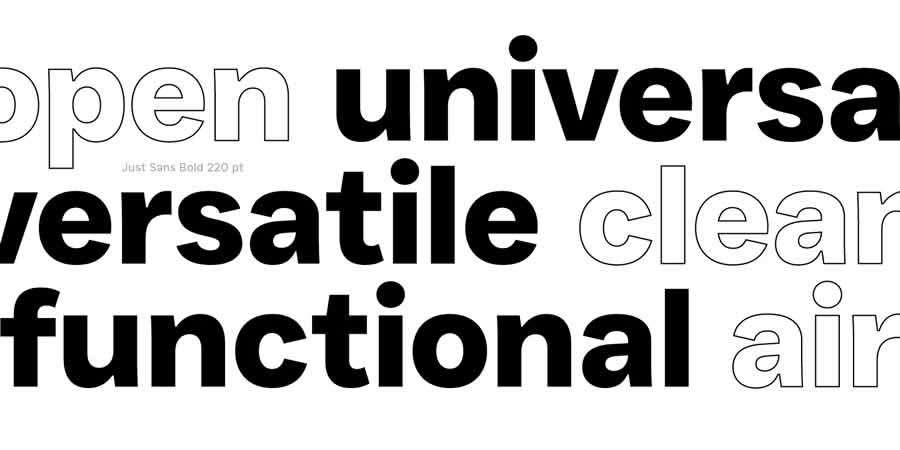
Dense is elegant, geometric, and compact, making it an excellent typeface for brand design. The regular weight is free. It is great for shorter copy, such as headlines or short paragraphs, as well as display campaigns and other branding materials where you want your message to be front and center.
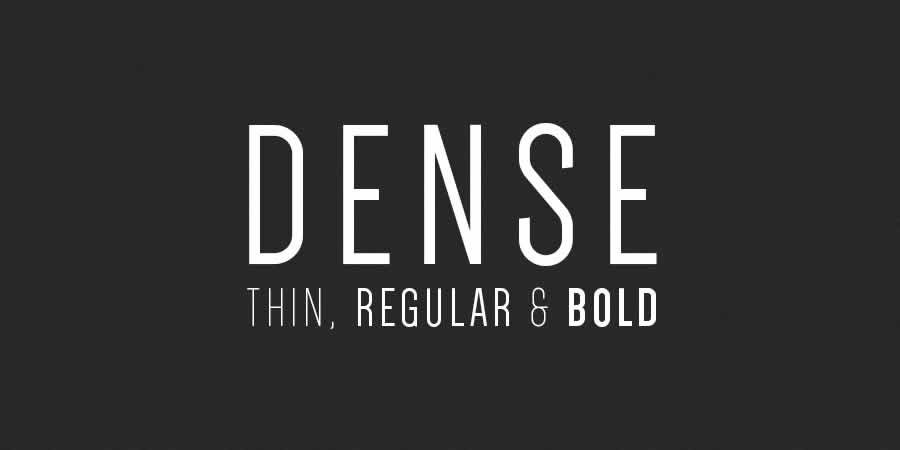
Crops is a clean sans-serif font designed with minimalism in mind. It comes in three versions (regular, light, and bold) and includes uppercase and lowercase characters, numerals, symbols, and multilingual support.
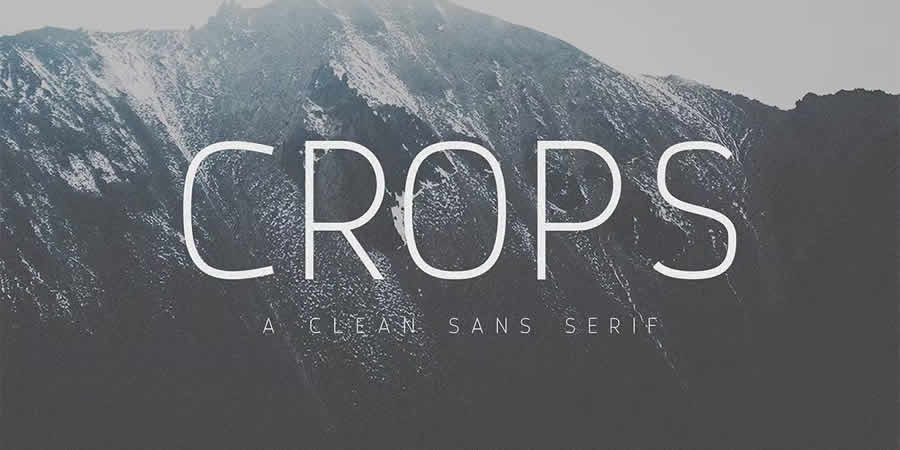
If you’re looking for a clean font for your next project, you’ll love Qartella. It’s a sans-serif typeface with a gentle aesthetic, perfect for friendly brands. It’s a great logo font, too! The Qaretella family includes ten fonts.
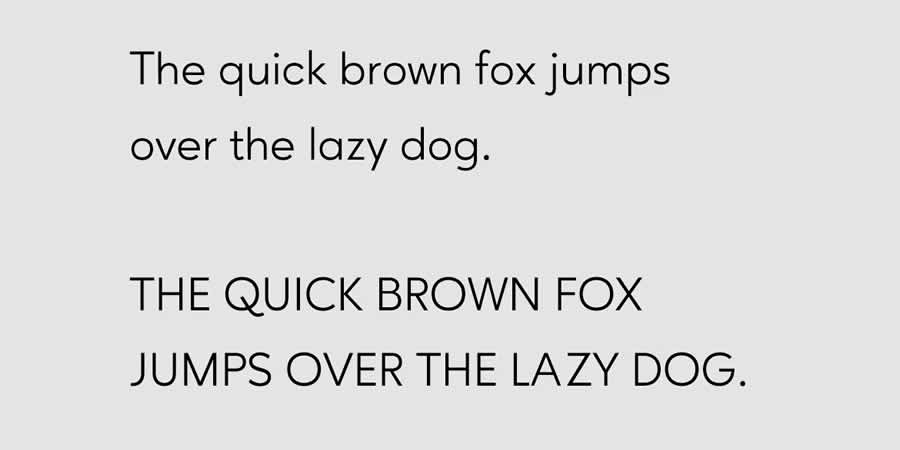
Anson is a reliable and robust font, like the World War II aircraft that inspired its name. This sans-serif offers a combination of ramrod-straight lines with slanted elements. It is legible even when used in longer paragraphs, making it perfect for technical industries.
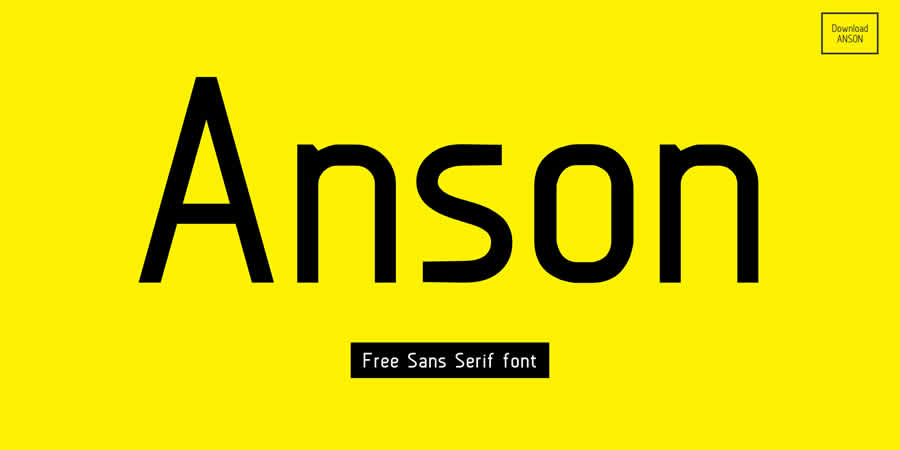
A sans-serif with a twist! Gorga is a clean, modern sans-serif with a few touches of grotesque typography. It includes six fonts in three weights, adjustable ligatures, contextual alternates, and multilingual characters.
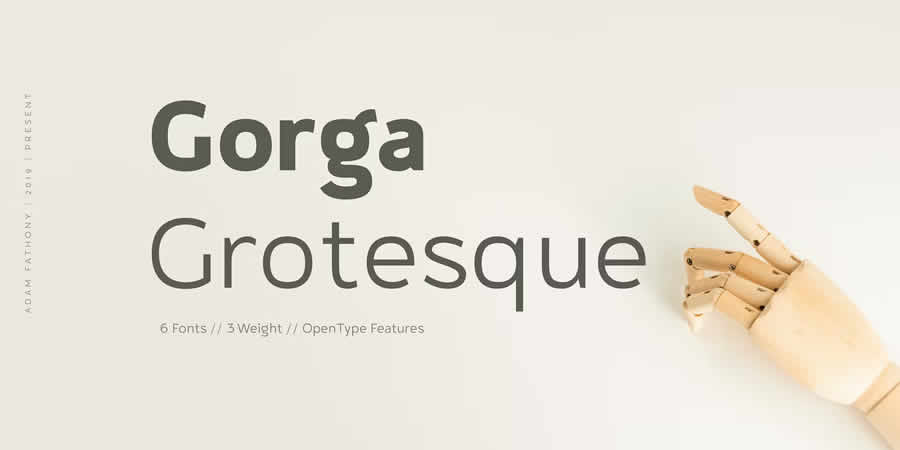
Bitter HT is perfect for projects that need a heavy focus on messaging. It’s a highly legible serif typeface that you can even use in longer copy. The download includes the regular, bold, and black variations.
Orion Pro is a clean, sans-serif typeface with a futuristic aesthetic. It’s perfect for minimalist headings and large banners. The download package includes a web font version that will help make the typography of your UI designs fantastic.
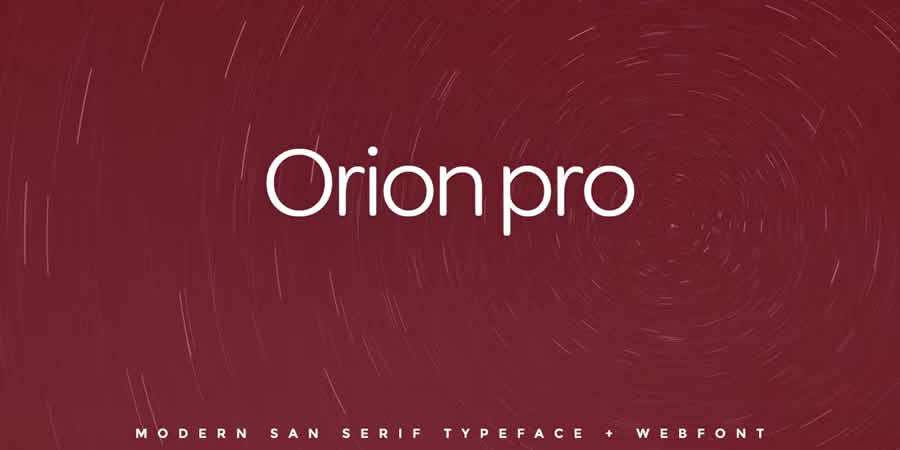
Designed by Jamie Wilson, Free to Download
Norwester is a clean and condensed display font. This free sans-serif has everything you need, including uppercase characters and variants, numerals, and punctuation. It looks great when used in shorter blocks of text, such as large headlines and poster content.
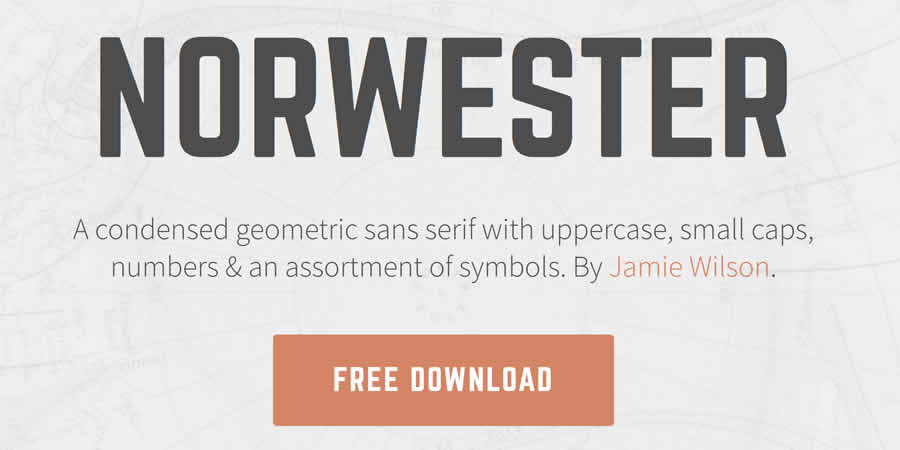
Designed by Álvaro Thomáz, Free to Download
Geometrically perfect and incredibly legible, Homizio Nova is an elegant sans-serif typeface. The all-caps variation is ideal for shorter large text, while the lowercase characters are great for longer copy.
Designed by Huerta Tipográfica, Free to Download
Alegreya Sans is a humanist font family rooted in calligraphic origins. This makes it beautiful for large headlines and highly legible in longer copy. The family includes 28 fonts: regular, black, extra bold, light, thin, and more. You can use it across various design projects with beautiful results.
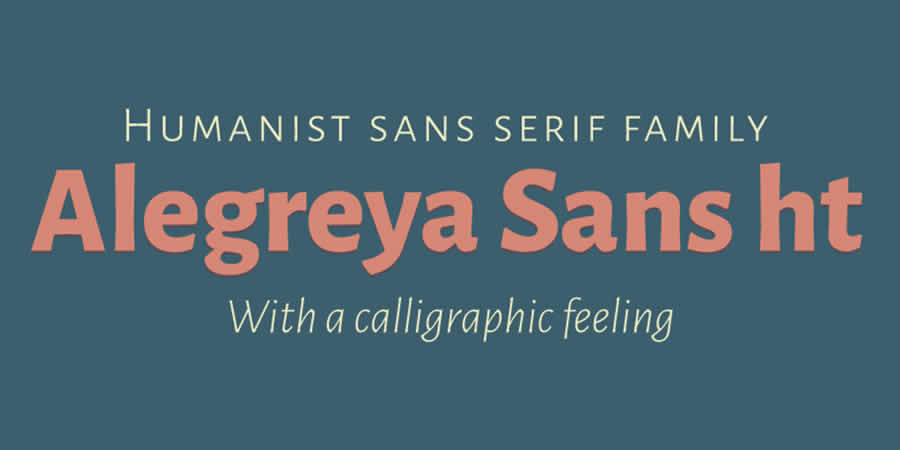
Designed by Natanael Gama, Free to Download
Exo 2.0 is an amazing free font for designers! You’ll love working with this font on your next project, especially if you like adding a twist with typographic ligatures.
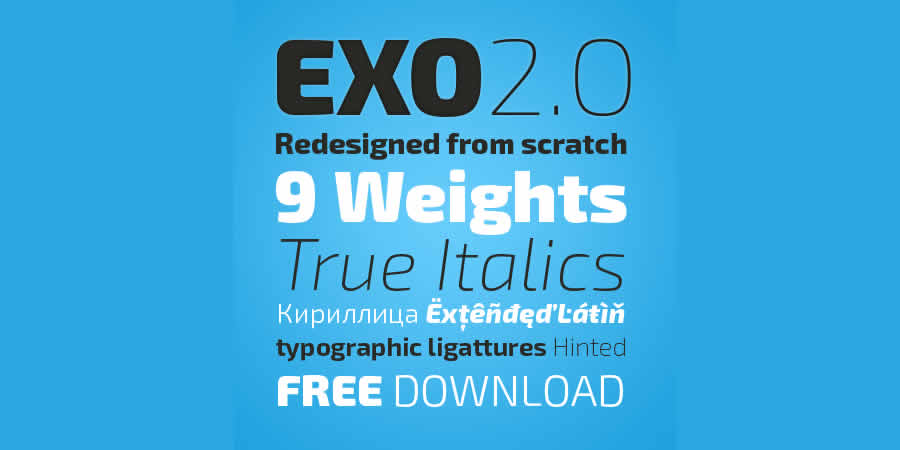
Clean, legible, and perfect, Fira is a sans-serif typeface with many variations for all your design needs. Use the lighter and thinner versions for web typography and the bolder variations for poster headlines and titles. You’ll love every character of this free font!